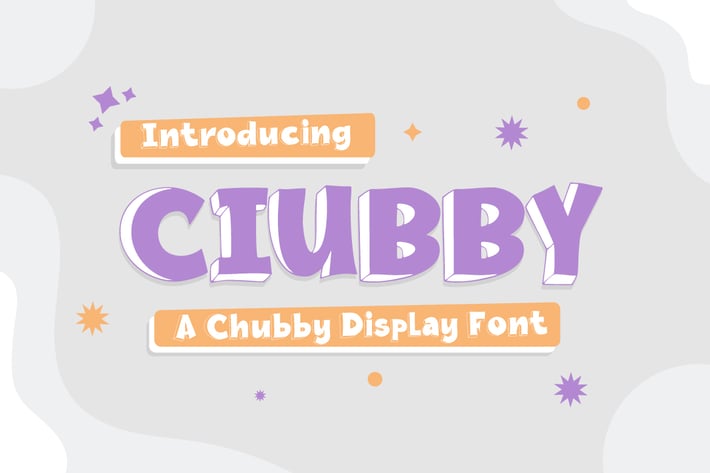
Chubby Display Font
Looking for a fun display font that makes your design bold and original? A great 3D font can be a real head-turner, leaving standard fonts in the dust.
Introducing Ciubby - A Chubby Display Font.
From T-shirts to headlines, Ciubby is perfect for any type of project. It works equally well for web and print, allowing you to use it across your brand. Let’s get creative!
Multilingual & Ligature Support
Full sets of Punctuation and Numerals